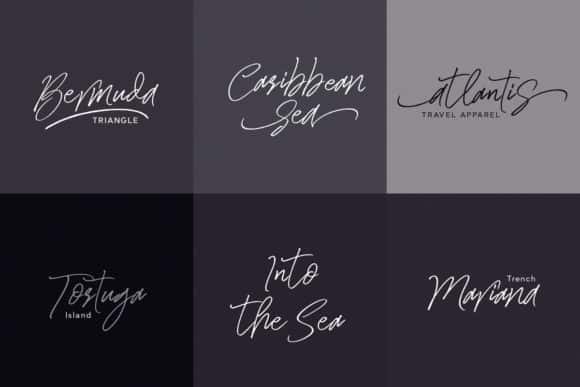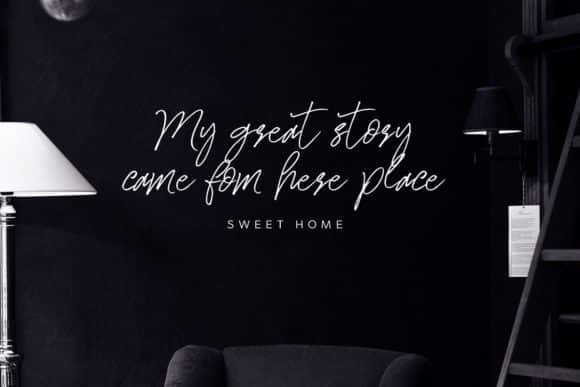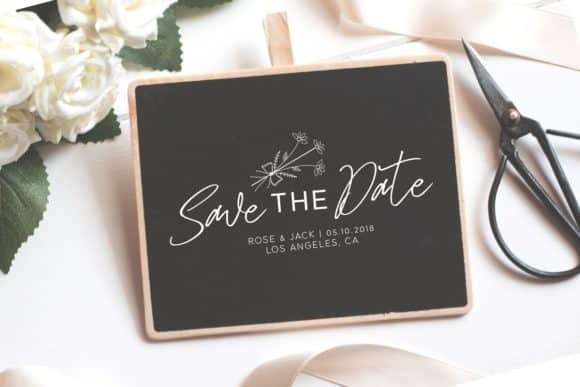
Sail Smith is a thin, lettered and graceful script font. Fall for its ravishing style, and use it to create gorgeous wedding invitations, beautiful stationary art, eye-catching social media posts, and much more! Add this lovely freebie to your creations and take your designs to the next level!